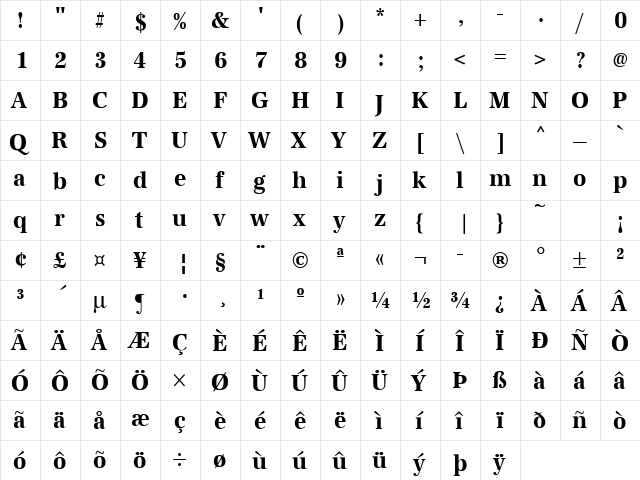
URWAntiquaTExtNar Bold Font Preview
URWAntiquaTExtNar Bold
URWAntiquaTExtNar Bold Font Details
Design Context for URWAntiquaTExtNar Typeface
URWAntiquaTExtNar offers clean, dependable letterforms without strong stylistic allegiance, making it a practical choice for designers who need flexibility. Its bold stroke weight gives it real presence on the page.